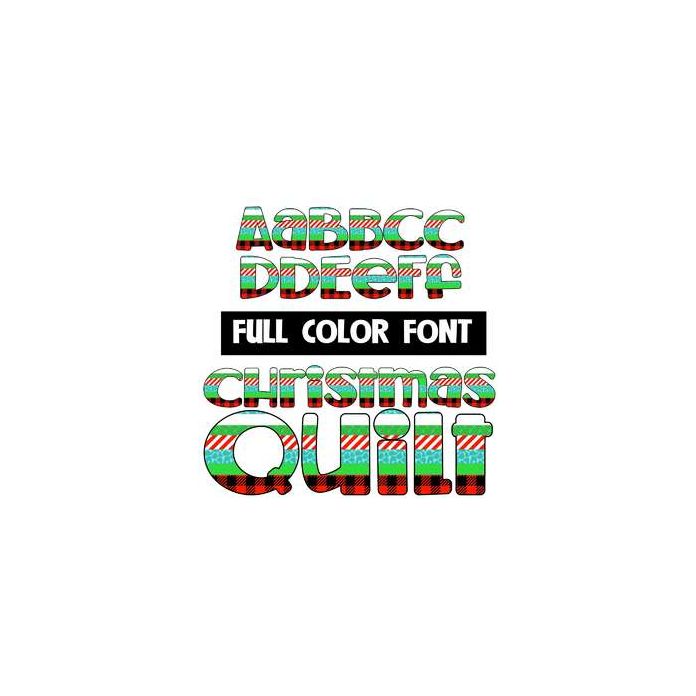
This full-color font features a number of Christmas patterns on each letter. This font works best for titles, displays, posters and more. Please note color fonts will show as black in non compatible programs. This font type is compatible with Silhouette Studio.